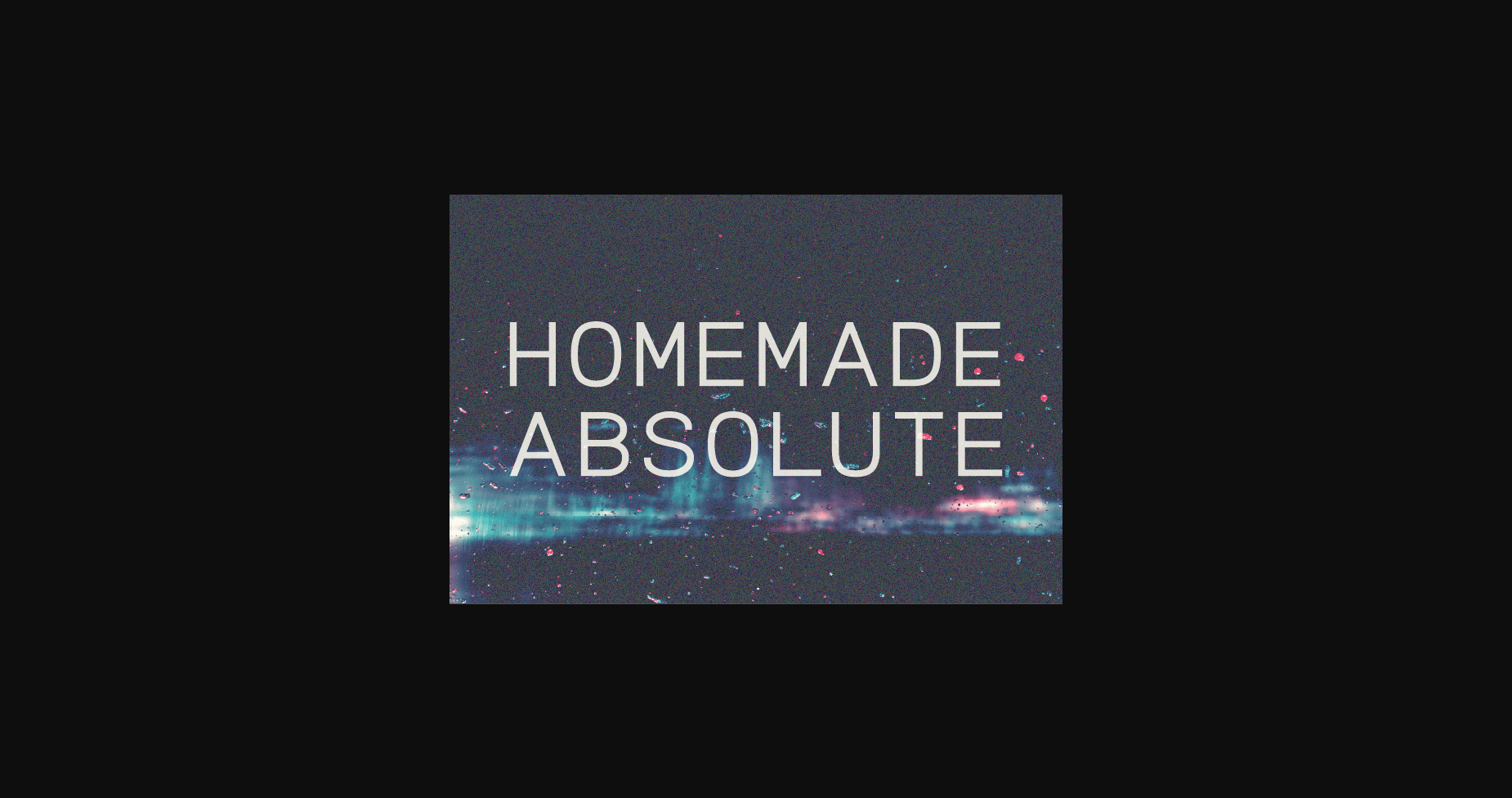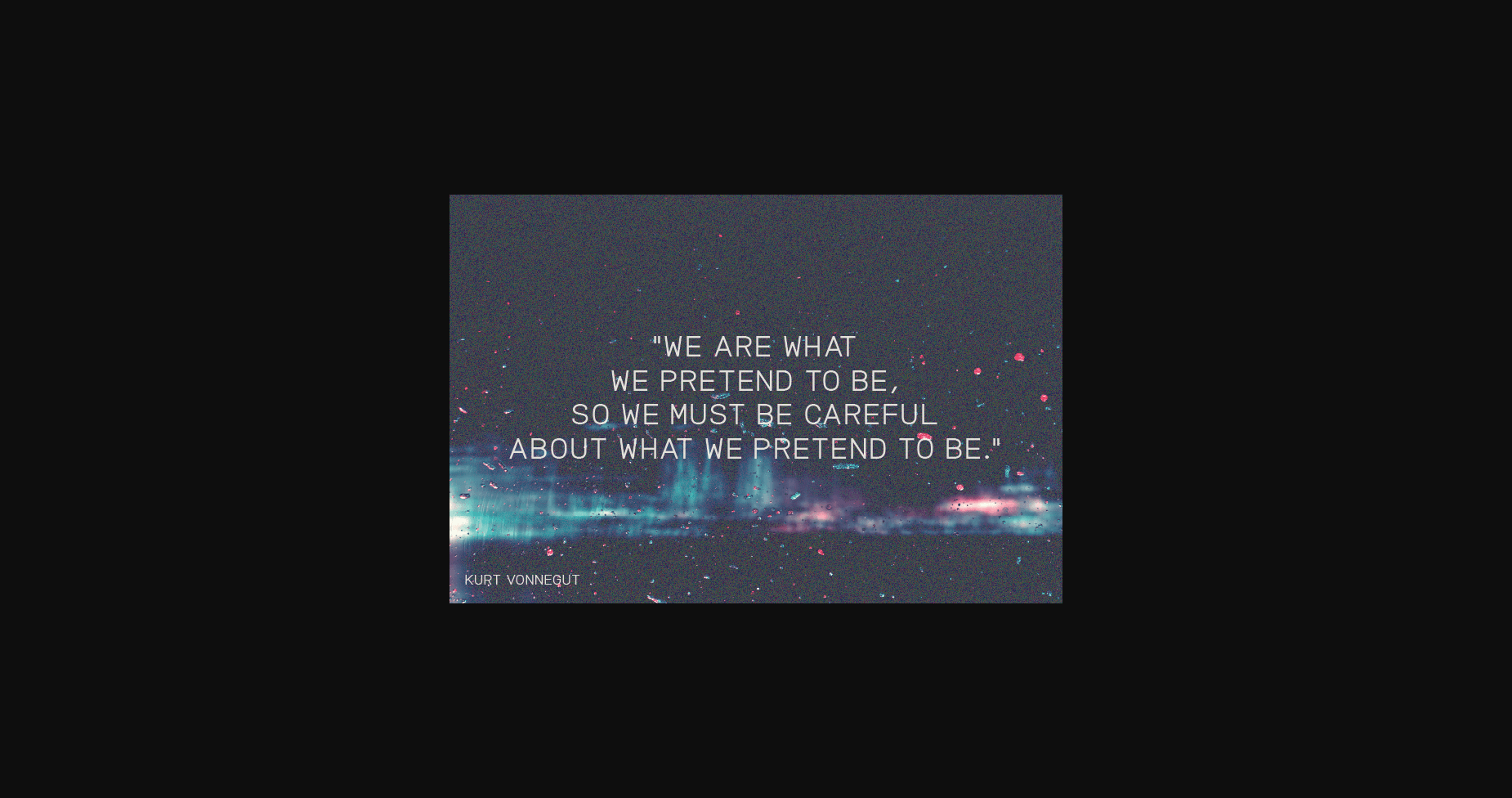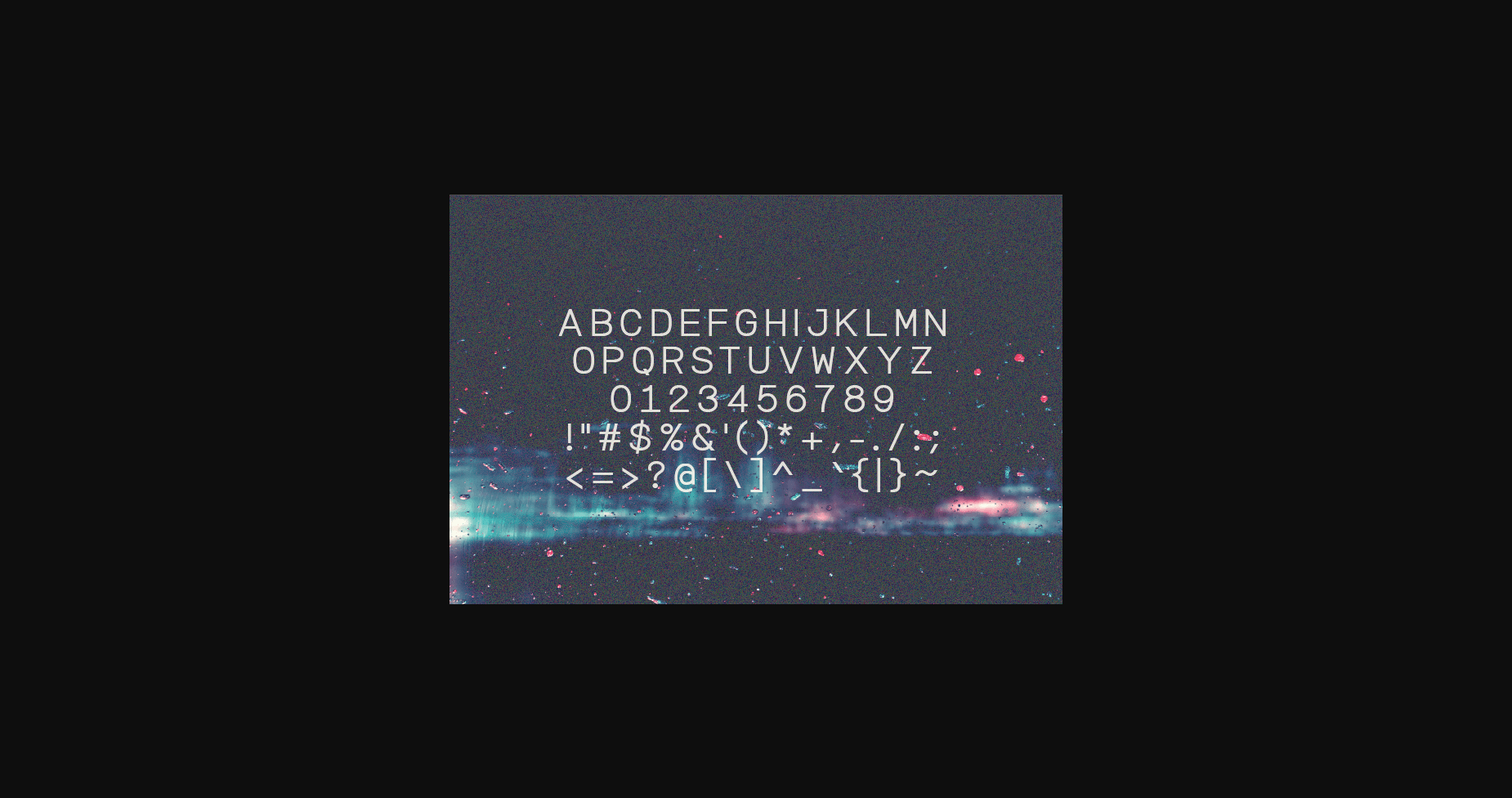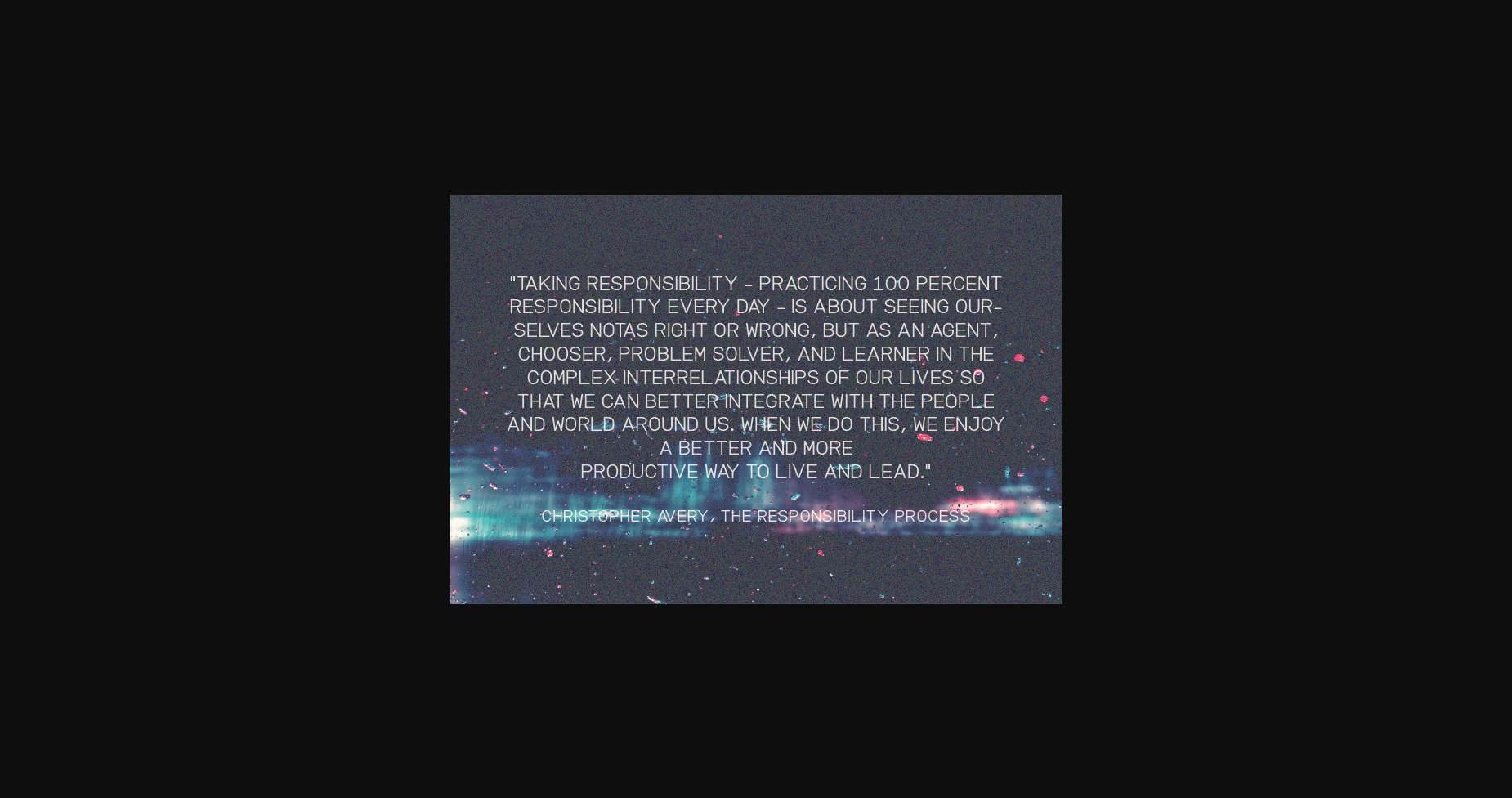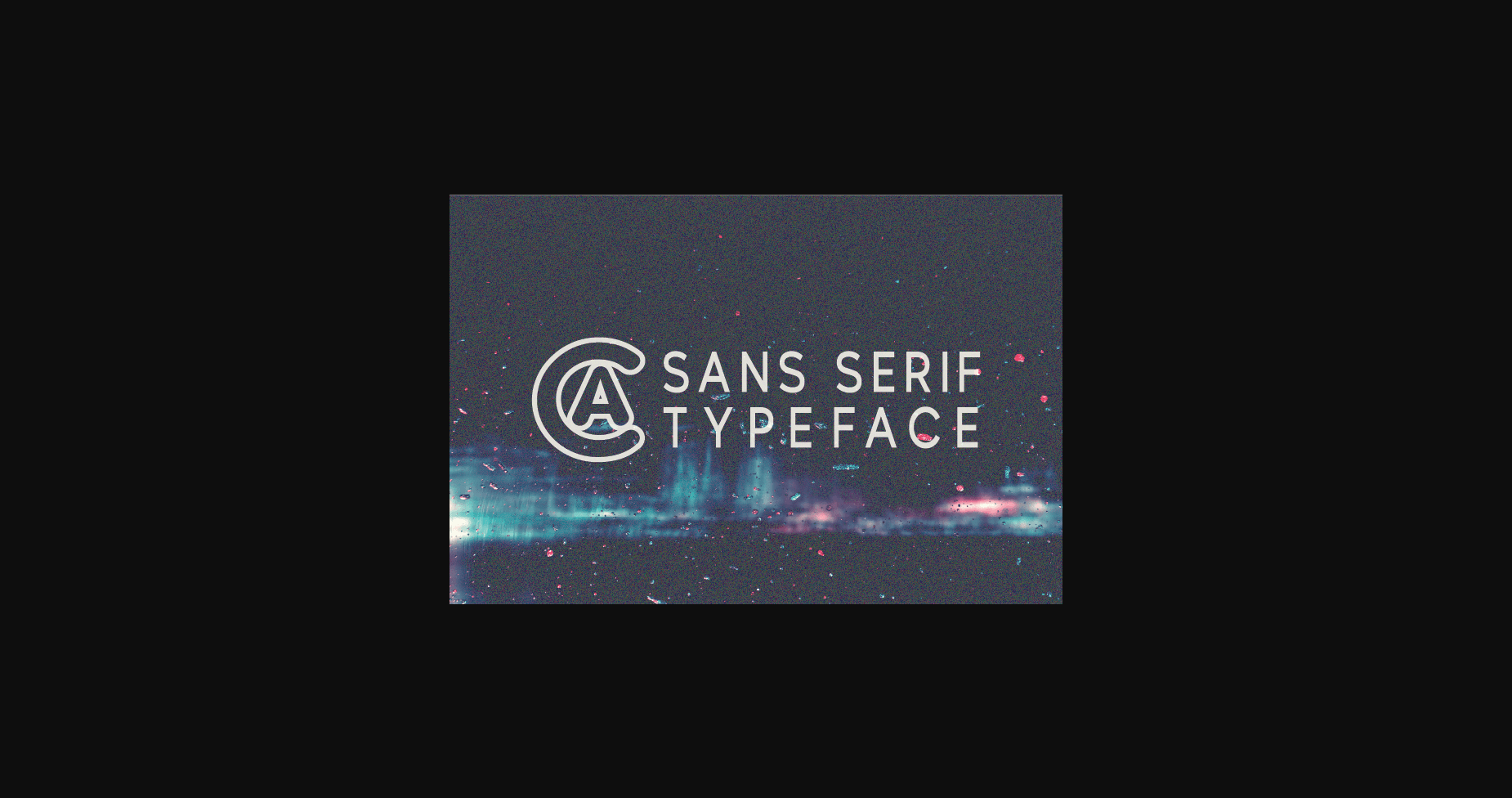
Homemade Absolute Font
About Homemade Absolute Font
Homemade Absolute is a modern, classy sans serif typeface. Extremely versatile, this typeface is perfect for logos, weddings, invitations, quotes, advertisements, print, magazines, and more!